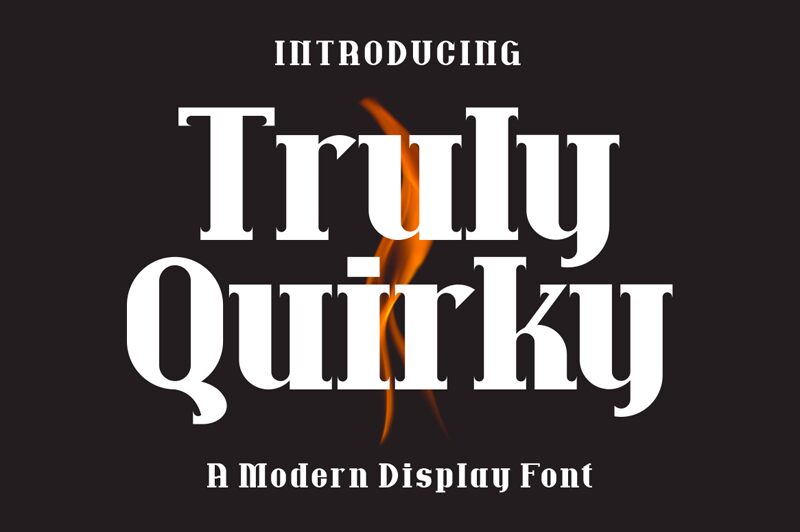
Truly Quirky font family is a free serif typographic solution designed and published by Gilang Ternadho. The quirky, modern, serif font family is decorated with a playful finish that ensures an artistic imprint.
Talking about versatility, it is not only equipped with uppercase and lowercase letters, but is also supported with keywords and numbers that can be very useful to make end to end branding designs. The font family comes in 2 styles along with alternates and ligatures.
A range of other applications present themselves, from simple invites and business cards to bold impactful newspapers, magazine headlines, and signage. If you are looking for an adventurous feel on the web, you can use it on websites, digital ads, or social media posts.